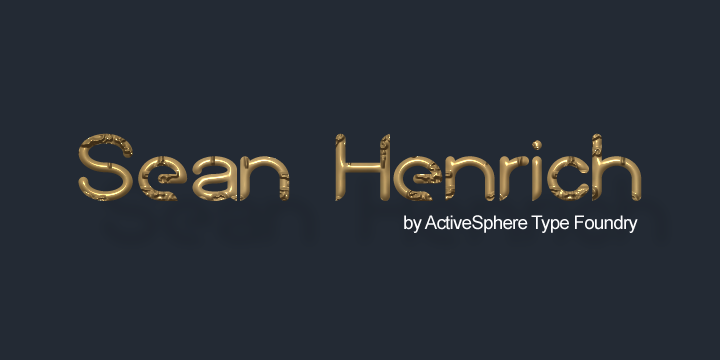
Sean Henrich ATF Font is perfect for vintage americana branding, classic print shop signage, retro advertising campaigns, heritage type specimen books, traditional printing materials, and authentic foundry-style graphics.
Sean Henrich ATF Font is exciting because it embodies the craftsmanship and typographic excellence of American Type Foundry traditions, delivering an authentic typeface that captures classic letterpress heritage and the golden age of American typography.
The Sean Henrich ATF Font family includes foundry variations: Sean Henrich ATF Light, Sean Henrich ATF Regular, Sean Henrich ATF Bold, vintage alternates, and decorative elements inspired by classic American Type Foundry specimens and traditional letterpress printing.
Celebrate typographic heritage with Sean Henrich ATF Font Free Download, an authentically crafted typeface that brings American Type Foundry excellence and classic printing tradition to your most distinguished design projects. This heritage font excels in creating memorable branding for traditional print shops, vintage design studios, typography museums, and craft printing services that honor the artisanal legacy of American letterpress and foundry type traditions. The masterfully designed letterforms feature classic proportions and foundry-quality details reminiscent of ATF specimens and traditional American typography that communicate craftsmanship, authenticity, and typographic excellence while ensuring perfect readability across all heritage applications. Perfect for vintage poster reproductions, craft brewery labels, traditional bookbinding projects, and typography education materials that need to convey respect for printing history and typographic craftsmanship, this font connects with designers and printers who appreciate the artistry and precision of traditional type foundries. Each character stands with foundry precision, making every typographic message feel like a masterpiece of American printing heritage that honors the skilled craftsmen who shaped our typographic landscape. Sean Henrich ATF Font transforms contemporary communications into timeless tributes that celebrate the enduring legacy of American Type Foundry excellence and inspire new generations to appreciate typographic artistry.